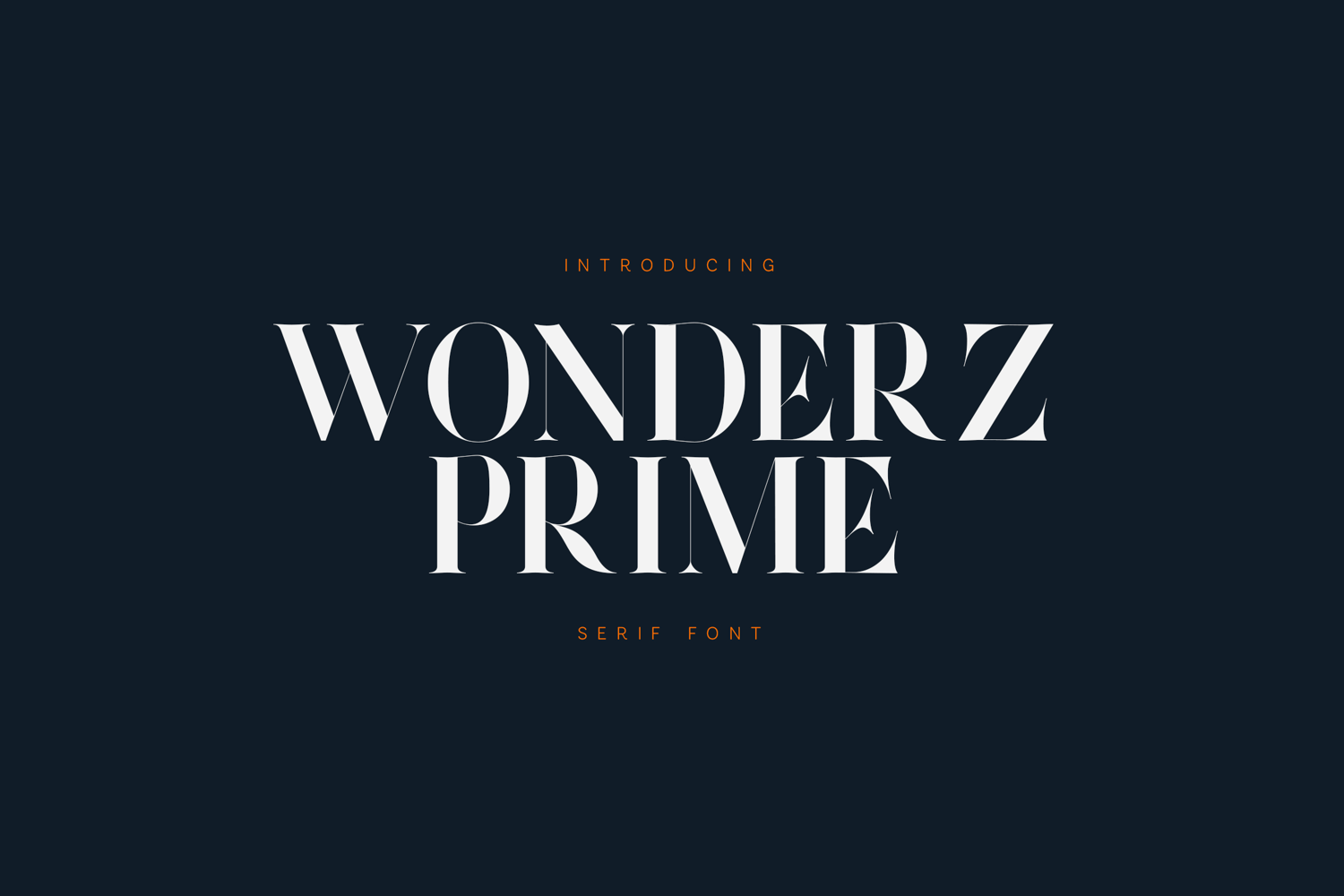
Wonderz Prime Luxury Modern Serif Font
Wonderz Prime is a luxury modern serif font crafted for high-impact, premium typography. Featuring sharp contrast, elegant curves, and confident proportions, this typeface delivers a bold yet refined visual presence that feels contemporary and timeless.
Designed to stand out in headlines and branding, Wonderz Prime is ideal for luxury brands, fashion editorials, magazines, logos, packaging, advertising, and high-end digital or print layouts. Its clean structure and sculpted details create a strong editorial voice while maintaining excellent readability.
Wonderz Prime balances sophistication and power, making it a versatile serif font for designers who want elegance without softness and authority without heaviness. It performs beautifully in large display settings and structured brand systems alike.
The font includes a complete character set with extensive multilingual support, numerals, punctuation, and symbols—ready for professional, global use.